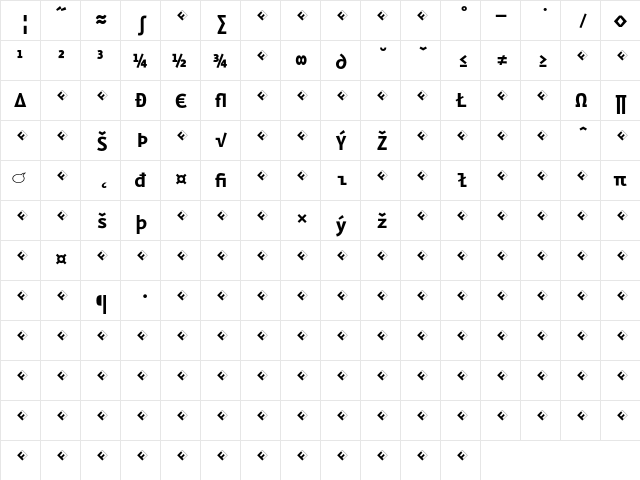
Eureka Mono Exp Bold
Design Context for Eureka Mono Exp Typeface
Eureka Mono Exp uses fixed-width spacing throughout, giving it the structured, systematic character associated with coding environments and technical documentation. The heavy weight commands attention and anchors typographic hierarchies.
Pro Tip: Pair Eureka Mono Exp with a proportional sans for UI contexts where code-style labels and regular body copy need to coexist.